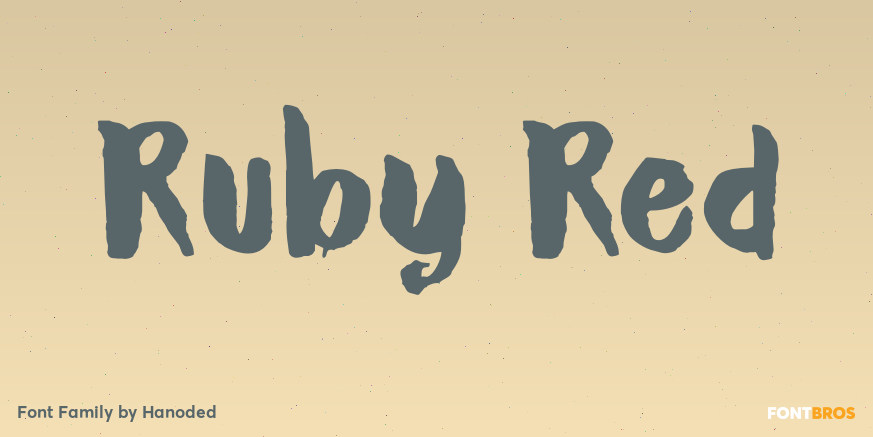
HomeFont BrosDistressedRuby Red Distressed Ruby Red FacebookXPinterestWhatsApp 1 of 1 About Ruby Red is a playful font, made with ink and a brush. Ruby Red would look great in ads and packaging. Comes with a treasure trove of diacritics.  DOWNLOAD ON FONT BROSThis font is sold and delivered by Font Bros. Font Canyon may earn a commission if you buy through this link. People also explored Dragonfly Font Dawson Signature Font Licenzo Font Skin and Bones Font Maktron Font Trondols Alphabet Font Andi Font 337 0 TagsRuby Red Font Previous articleCynCynNext articlePop LEAVE A REPLY Cancel reply Comment: Please enter your comment! Name:* Please enter your name here Email:* You have entered an incorrect email address! Please enter your email address here Website: Save my name, email, and website in this browser for the next time I comment. Personal Use Free Talking on Personal Use Free Read more about this font Rasiday Personal Use Free Read more about this font Rothwell Personal Use Free Read more about this font Rise of Kingdom Personal Use Free Read more about this font BLOG Free vs Paid Fonts: Why Investing in Premium Fonts Is Worth It Free vs Paid Fonts: Why Premium Fonts Are Worth It in 2025 The debate of free vs paid fonts continues in the design world. While... Best Fonts for T-Shirt Design – Top 2025 Picks Free Fonts Risk: Why Free Fonts Can Be Dangerous for Designers Using Fonts in Digital Marketing: Tips to Strengthen Your Brand Identity